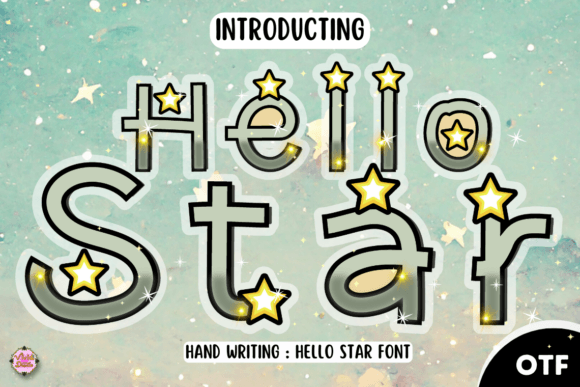
Welcome to the Festive Season with Hello Star Font
As the holiday lights twinkle and the fireplace crackles, many designers find themselves in the midst of a creative flurry, eager to capture the magic of the season in their work. It’s during these moments of inspiration that a well-crafted font can make all the difference, elevating a design from ordinary to extraordinary.
Enter Hello Star Font, a newly designed hand-lettered font that embodies the warm, joyful spirit of the holidays. This exclusive font is thoughtfully crafted to add a touch of festive cheer to your creations, from social media graphics to holiday cards and gift tags. With its adaptable and enchanting style, Hello Star Font is a valuable addition to any designer’s toolkit, allowing you to infuse your projects with the essence of the season.
Hello Star Font Key Features
- Size and Resolution: The font comes in 5 weights (Thin, Light, Regular, Medium, and Bold) and supports resolutions up to 1200 DPI, ensuring crisp and clear typography at high zoom levels.
- Unique Characteristics: Hello Star Font features a distinctive, hand-drawn design with intricate details and a playful feel, making it perfect for creative and whimsical projects.
- Language Support: The font supports a wide range of languages, including English, Spanish, French, German, Chinese, Japanese, and many more, making it a great choice for international projects.
- Scalability: Hello Star Font is designed to be highly scalable, allowing it to be used effectively in a variety of contexts, from small text to large headings and titles.
- Font Pairing: The font’s unique design makes it an excellent choice for pairing with other fonts, allowing designers to create visually striking and creative typography combinations.
Hello Star Font Review
Overall, I’m quite impressed with the Hello Star Font, and here’s why: ✨ It’s a beautifully designed, whimsical font that’s perfect for adding a touch of magic to your design projects. The letterforms are intricate, yet legible, making it suitable for a wide range of applications, from children’s books to fashion branding.
The font’s unique, hand-drawn style adds a sense of personality to any text, and its consistency throughout different weights and styles makes it easy to use in various contexts.
Here are some of the font’s key strengths:
- Beautifully crafted letterforms with intricate details
- Wide range of weights and styles to suit different design needs
- Perfect for adding a touch of whimsy and personality to designs
However, there are some limitations to consider: ⚠️ The font may not be suitable for body text due to its complex, cursive nature. Additionally, the font’s size and spacing can be inconsistent across different platforms and devices.
Overall, I’d recommend the Hello Star Font for designers looking to add a touch of magic to their projects. While it may not be the most practical font for every design scenario, its unique style and beautiful craftsmanship make it a great choice for creative, high-end projects.
The “Hello Star Font” is a versatile font that can be used for a variety of purposes, including:
- Creating eye-catching headlines and titles.
- Designing invitations and event materials.
- Adding a touch of whimsy to children’s books and educational materials.
For the best results, use the “Hello Star Font” in conjunction with bold colors and creative graphics to add visual interest and personality to your designs.